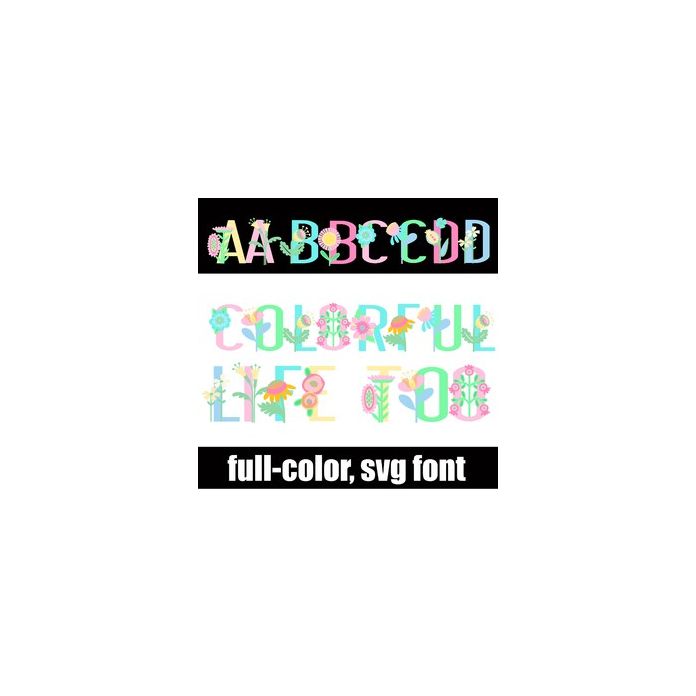
This full-color font sans serif lettering with pastel flowers. There is an alt version upper and lowercase that you can access through Silhouette's glyph map.